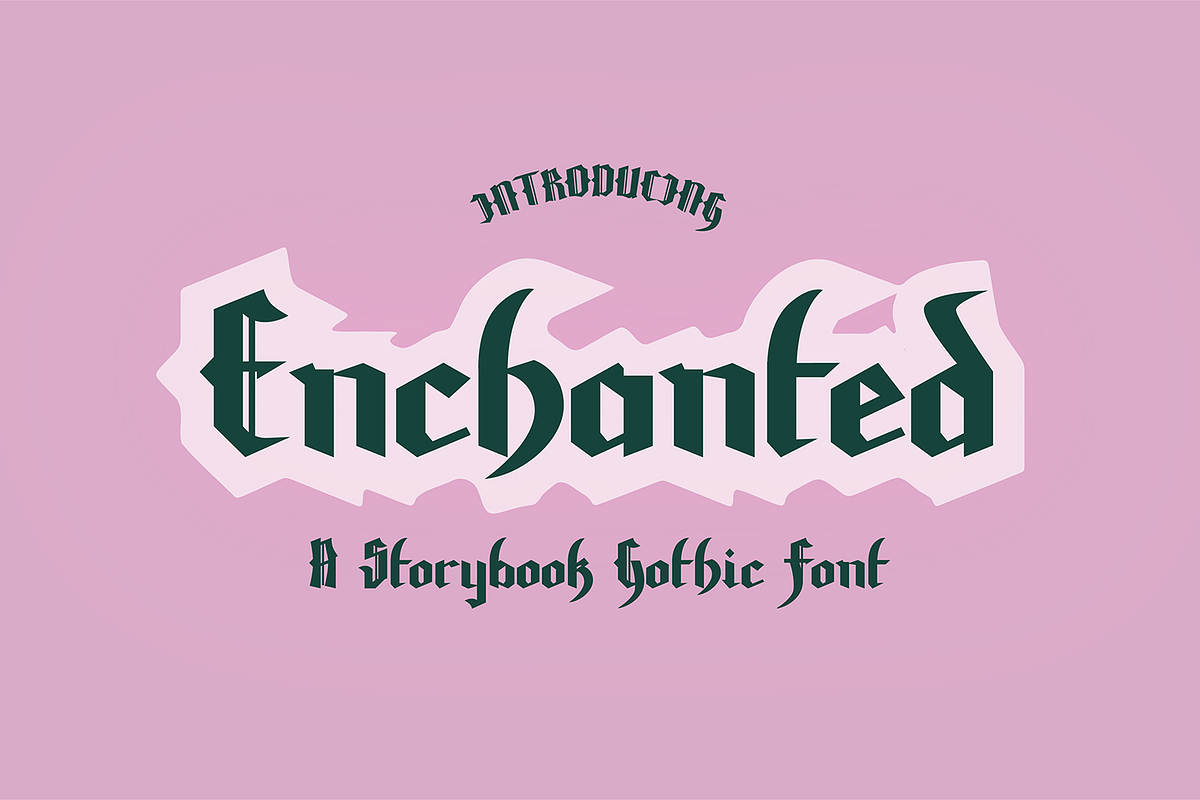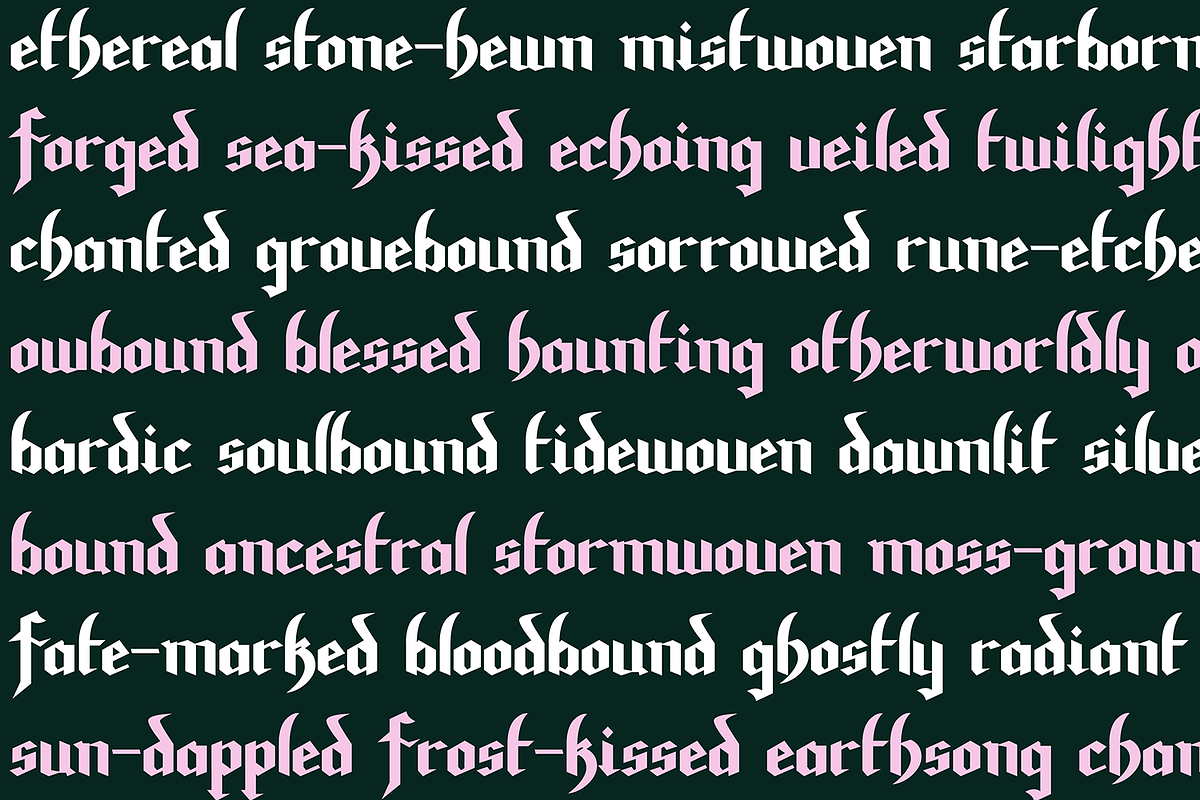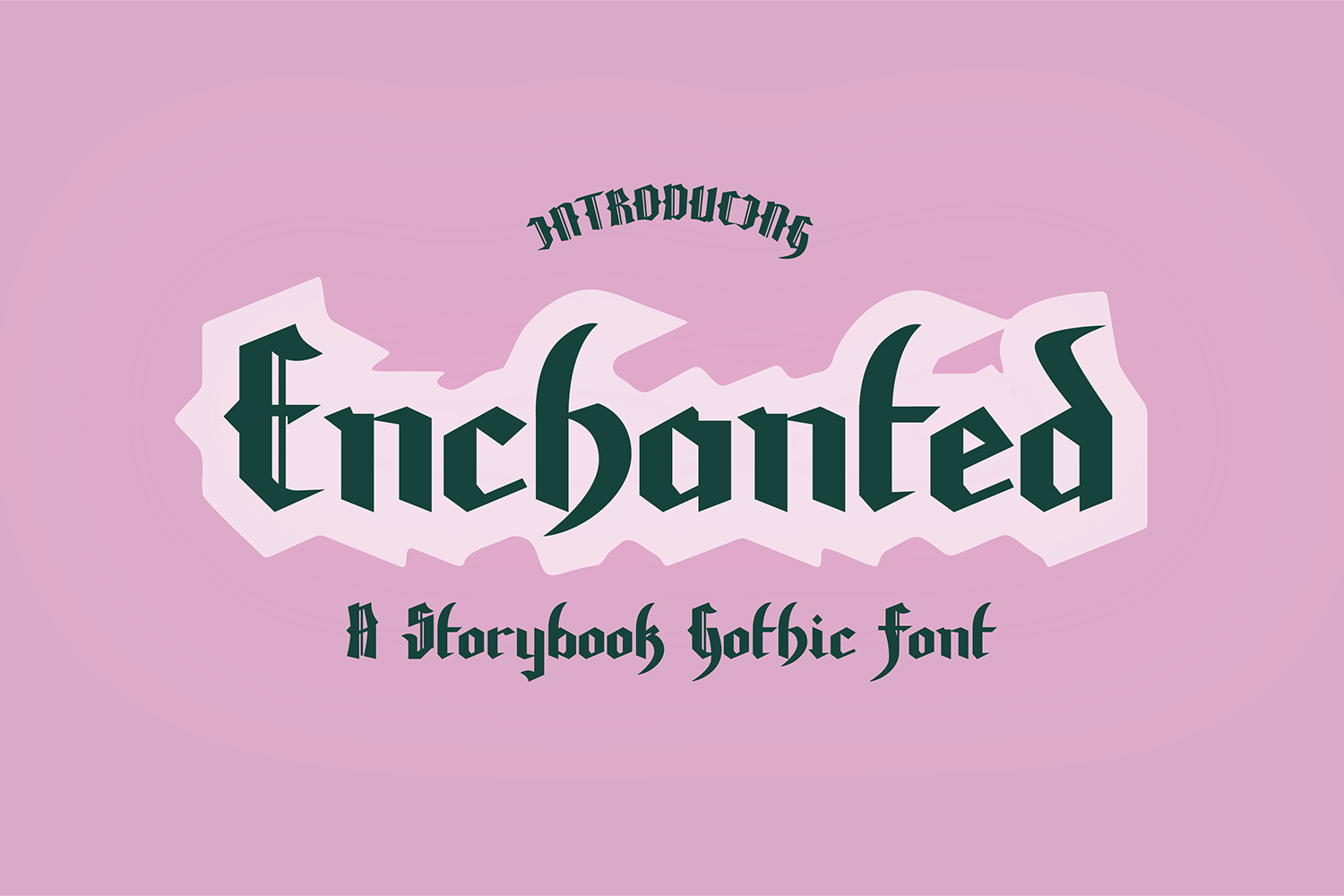
ENCHANTED Storybook Blackletter Font
"Enchanted" a bold and stylish blackletter font.
This font is a hand-drawn blackletter font that is perfect for social media or crafty projects. Use if for branding, crafts for decor, invitations, and more! Includes upper and lowercase glyphs, numbers, punctuation, and intl characters.